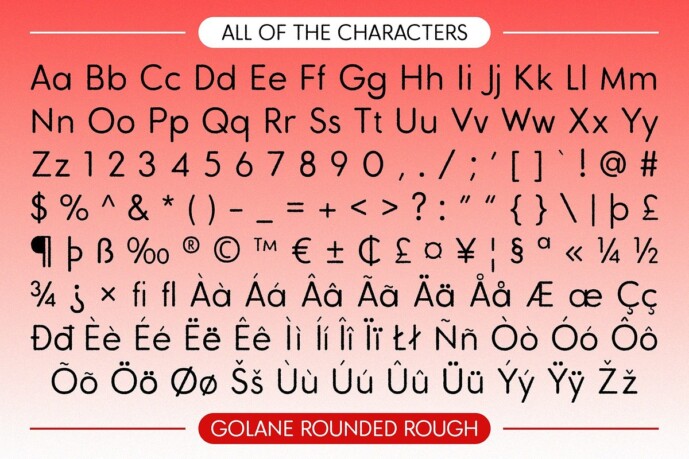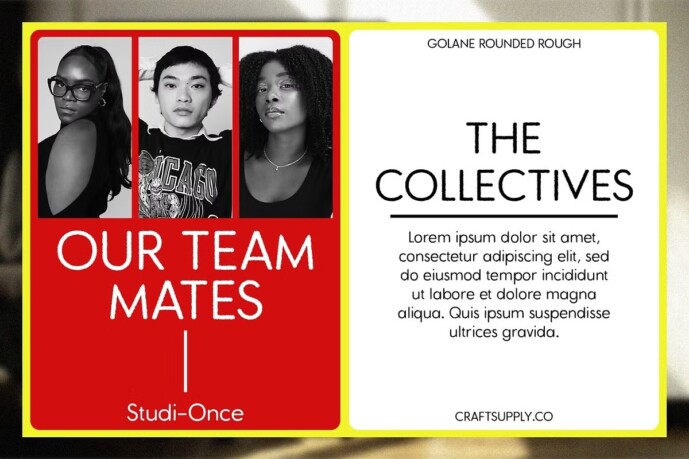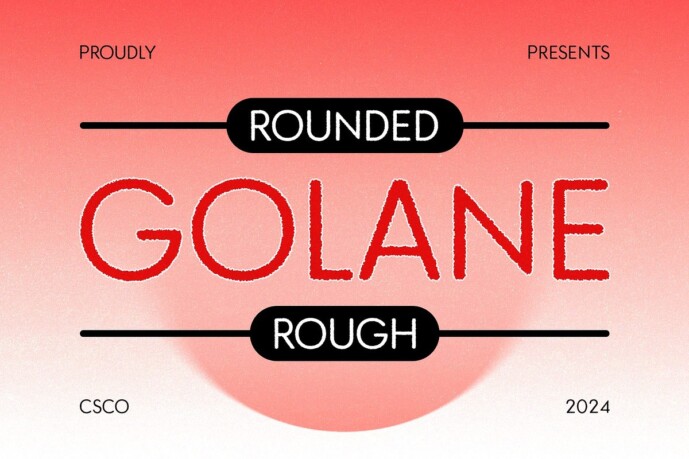
Golane Rounded Rough Font
Designer: Craft Supply Co.
Golane Rounded Rough Font is a modern sans serif font that features rounded shapes and a unique rough effect. The rounded letterforms provide a friendly and approachable feel, perfect for adding warmth and charm to your designs.
Rough Effect for Added Character The rough effect introduces a textured element that adds character and uniqueness to the font. This combination of clean, rounded shapes with a rustic touch creates a distinctive and memorable look.
Ideal for Creative Branding and Packaging Design This rounded font is ideal for creative branding, packaging design, and projects that require standout visual elements. Its fresh and modern appearance, combined with rustic charm, makes it a versatile choice for various design applications.
Perfect for Personality-Filled Visual Elements Whether you’re working on branding, packaging, or other creative projects, this rounded font offers a perfect blend of modern style and unique character. Its friendly yet textured design ensures your projects stand out with personality and flair.